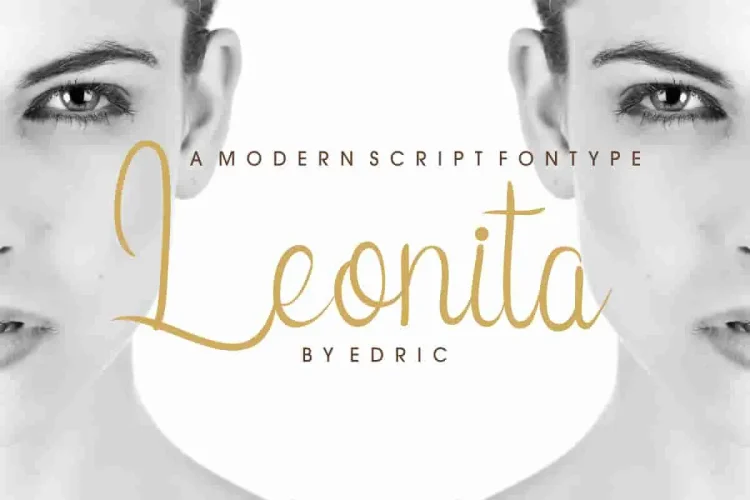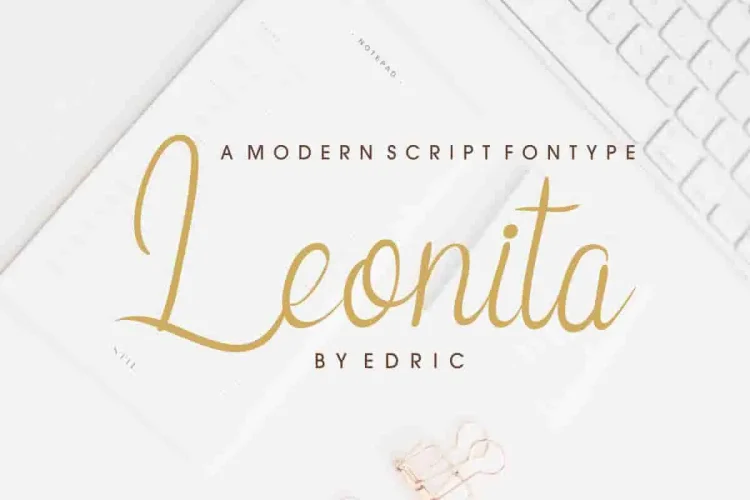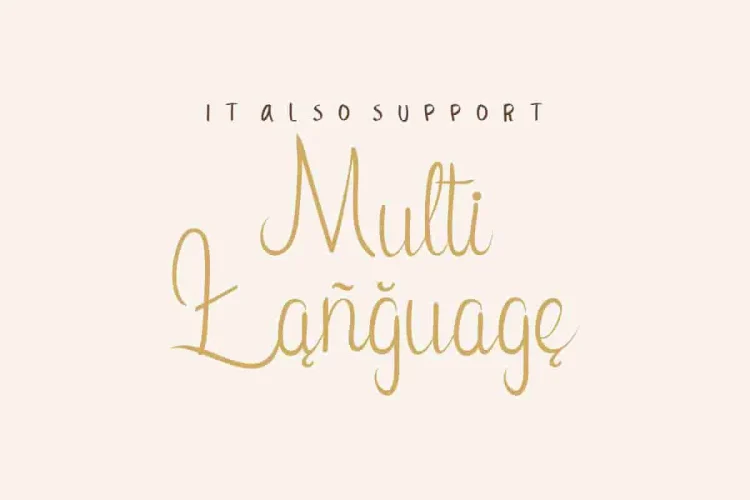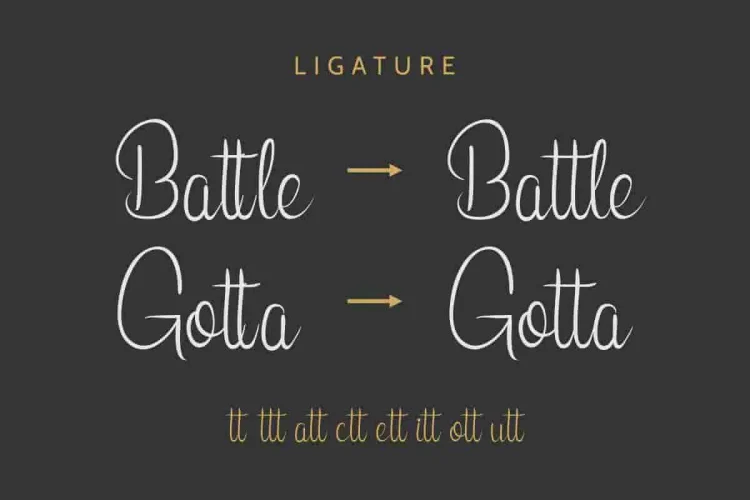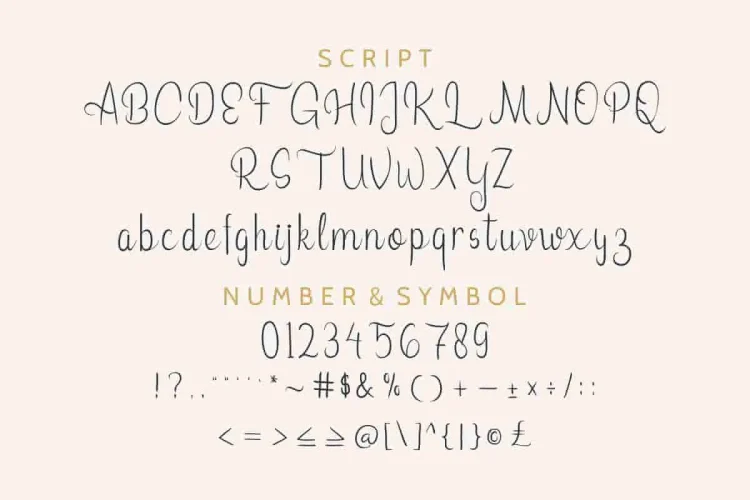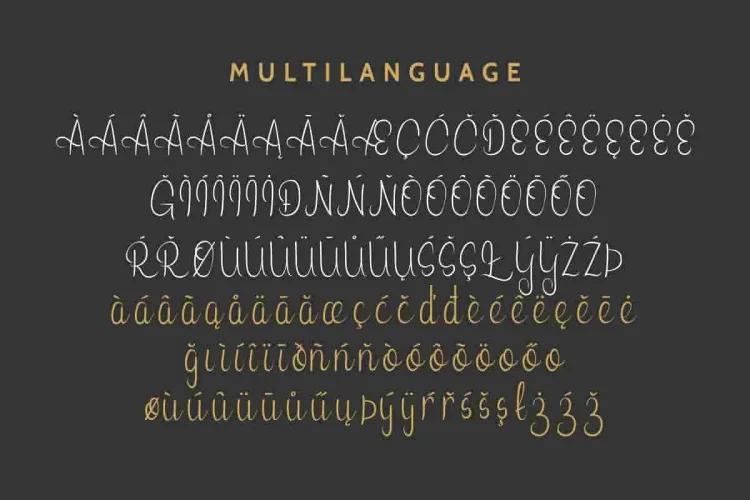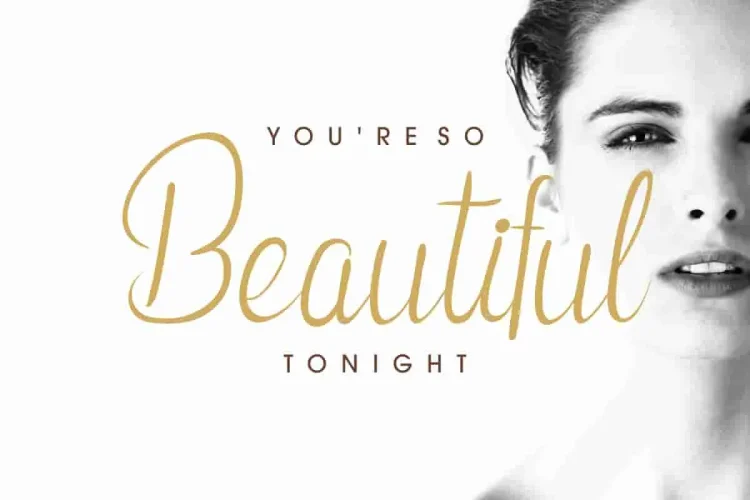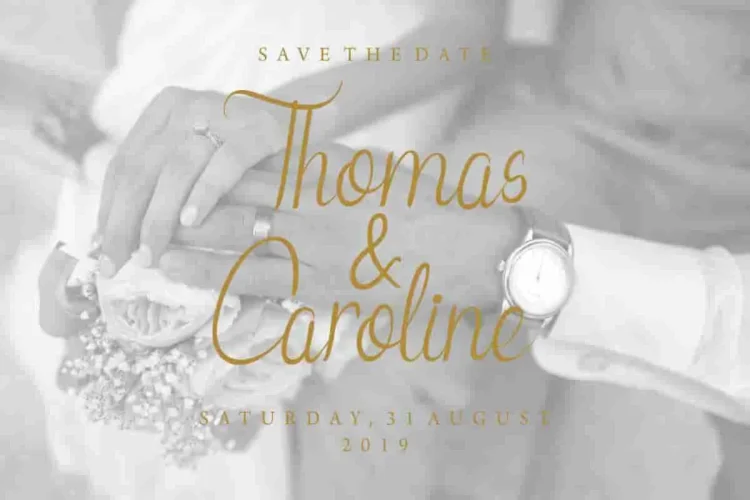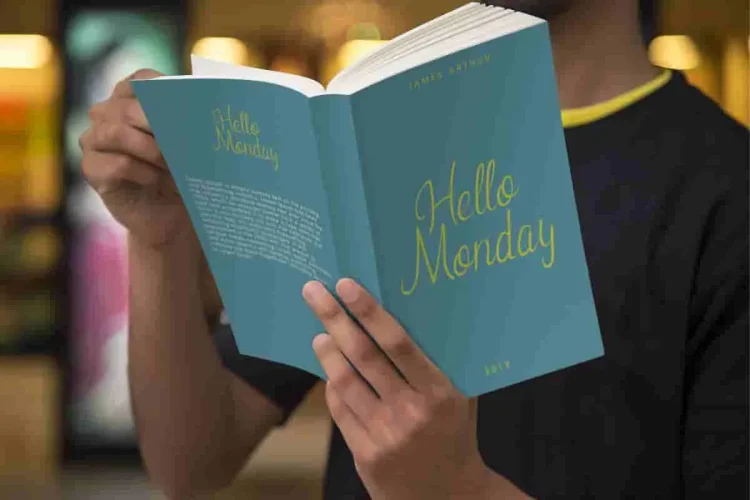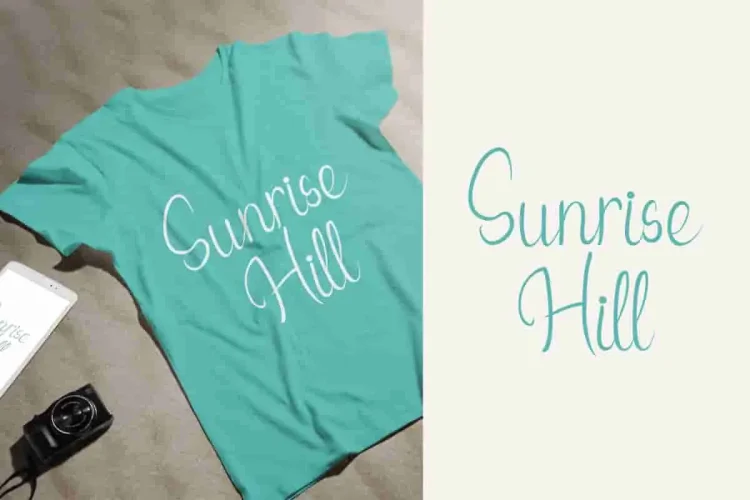
Leonita font is A modern calligraphy Script Font!
Leonita is a new calligraphy fonts by Edric Studio and script font with beautiful characters. It has a natural, elegant, and stylish style.
Plus it support multi-languageWhat’s include on package: